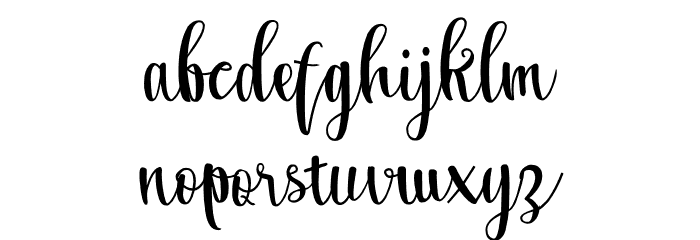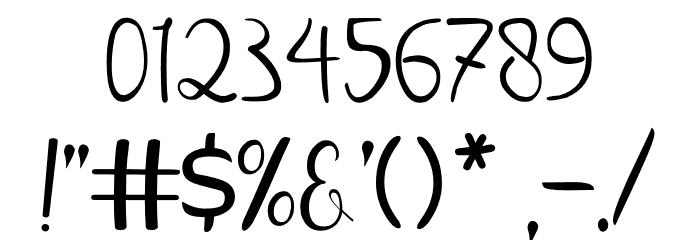
Yellow ganana Font
This font features a flowing, cursive style with elegant loops and swashes, giving it a handwritten appearance. The uppercase letters are bold and expressive, with varying stroke widths that add a dynamic feel. The lowercase letters maintain a consistent style, with smooth connections between characters, enhancing readability. Numbers and special characters follow the same aesthetic, ensuring a cohesive look across all text elements. The overall design is both artistic and legible, making it suitable for creative projects that require a personal touch.
A cursive, handwritten-style font with elegant loops and swashes.
- Font: Yellow ganana
- Proposed Projects: Ideal for wedding invitations, greeting cards, branding, and logo design.
- Category: Script
- Use Case: Logos, Invitations, Decorative text